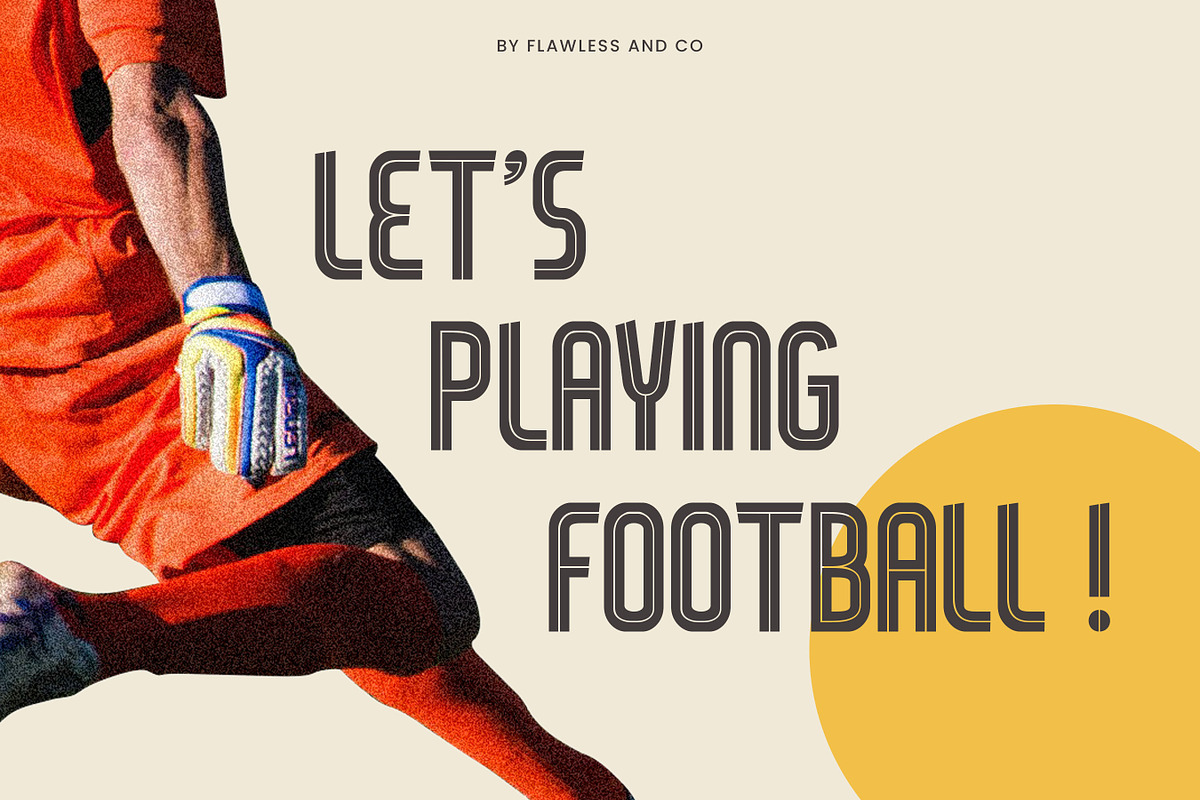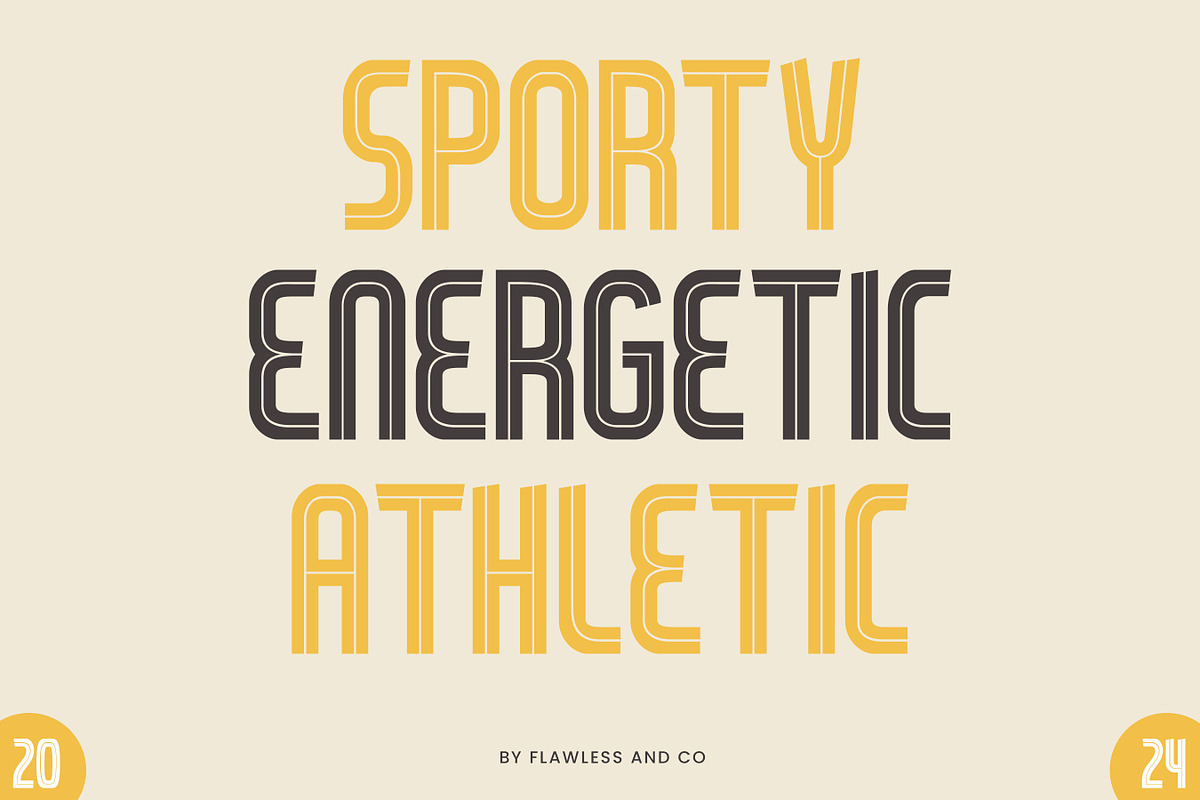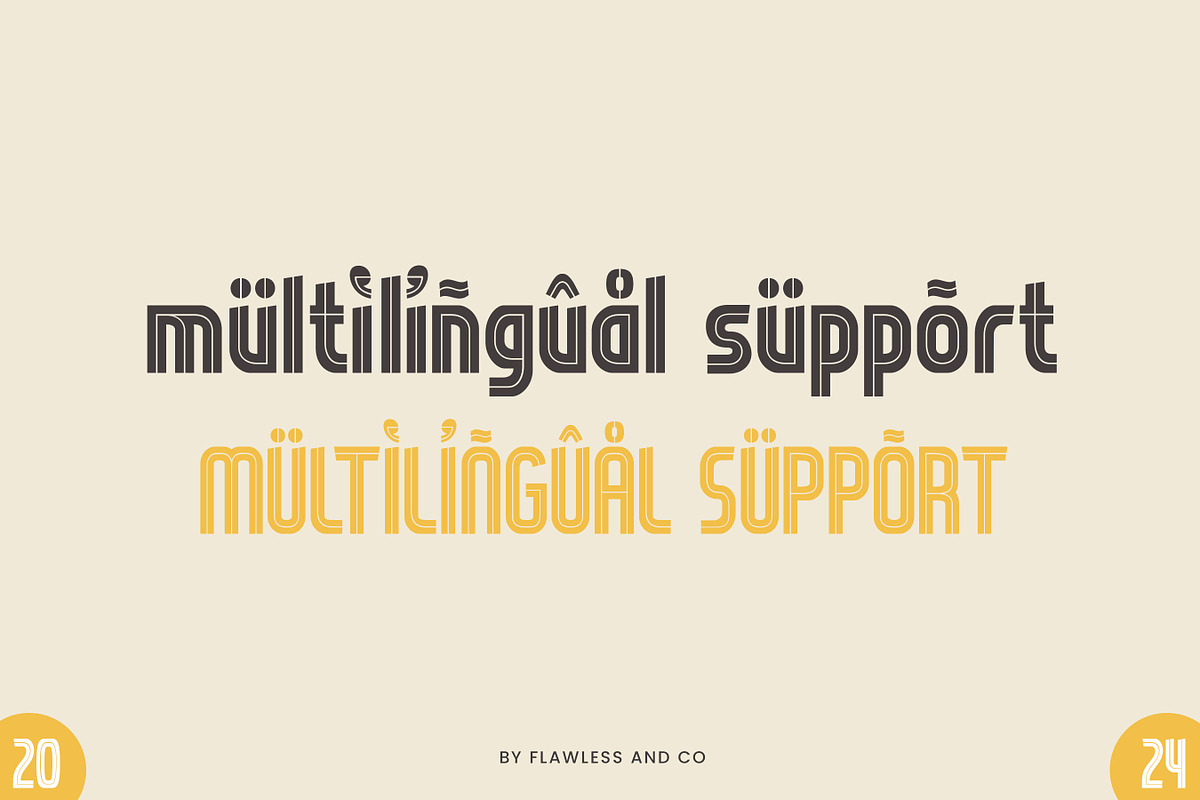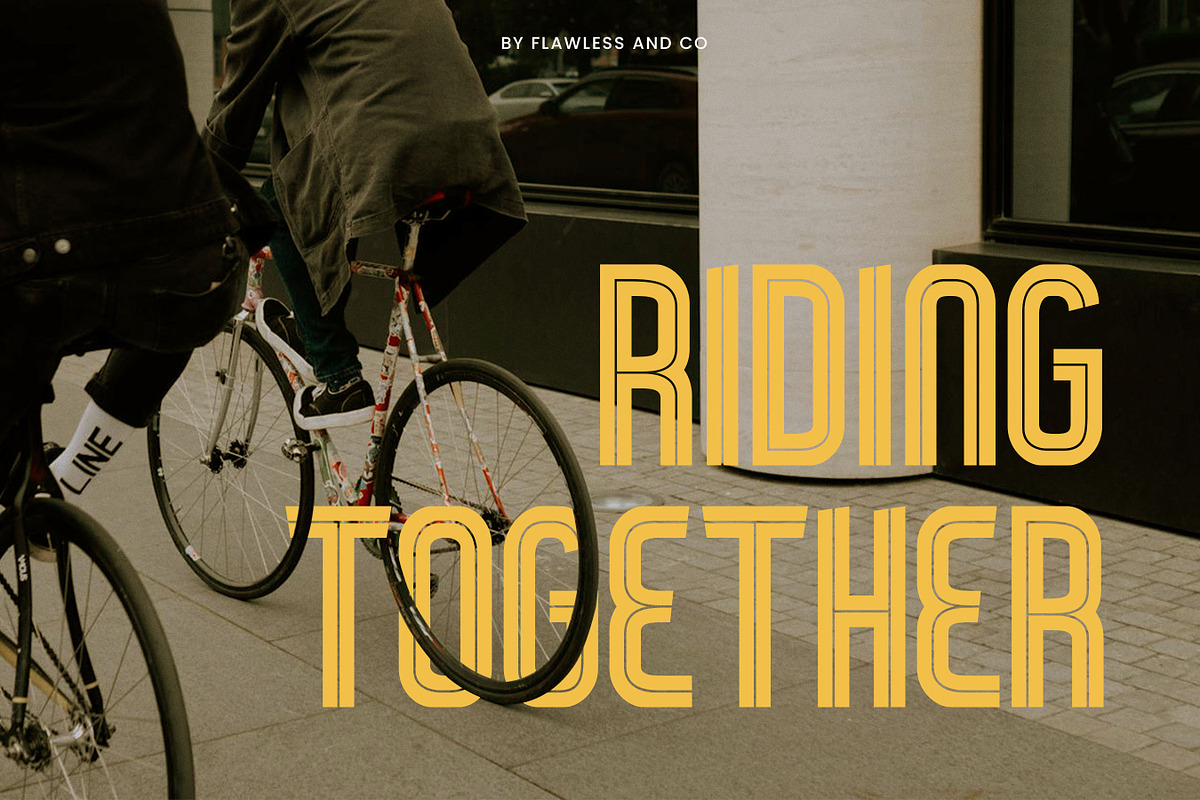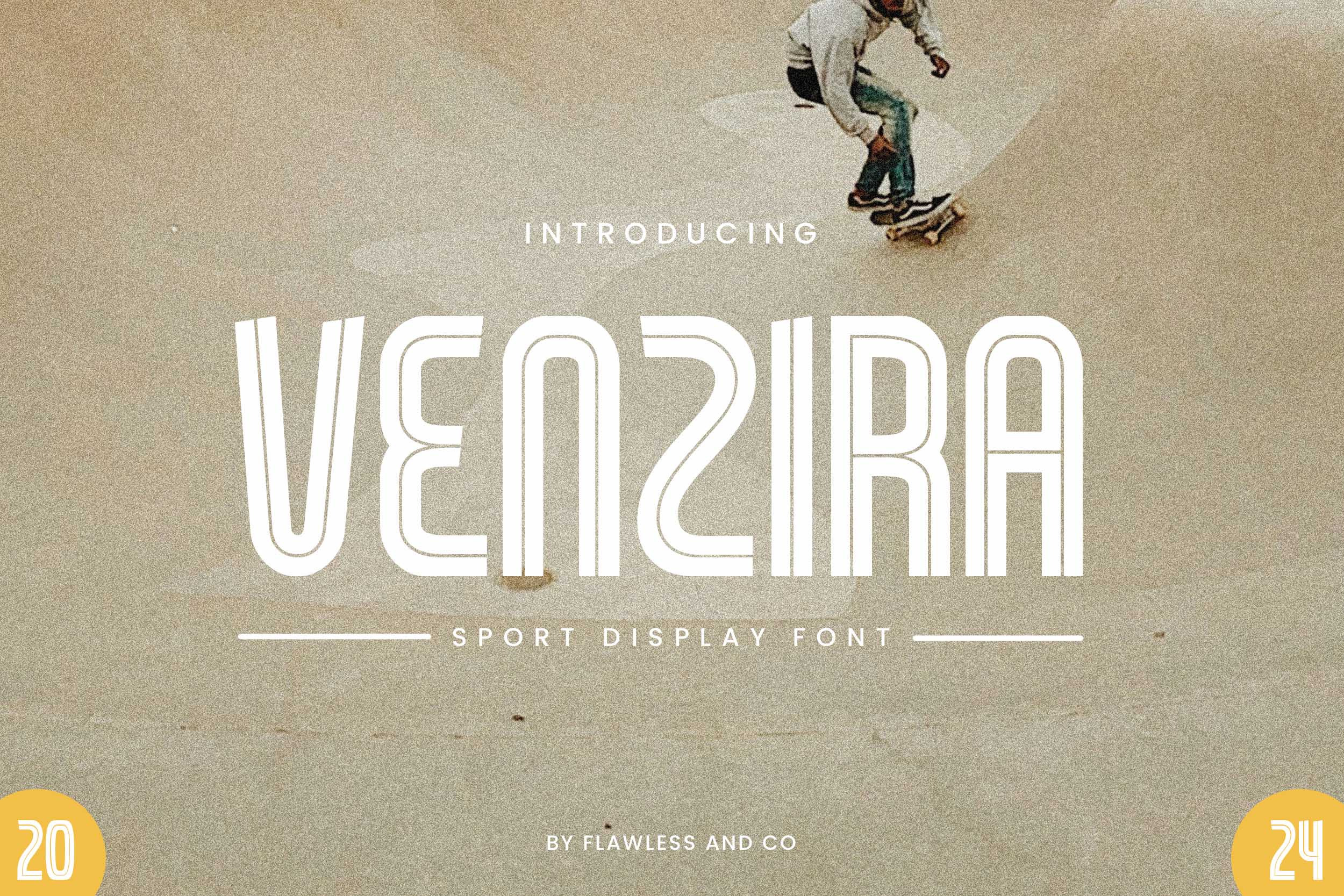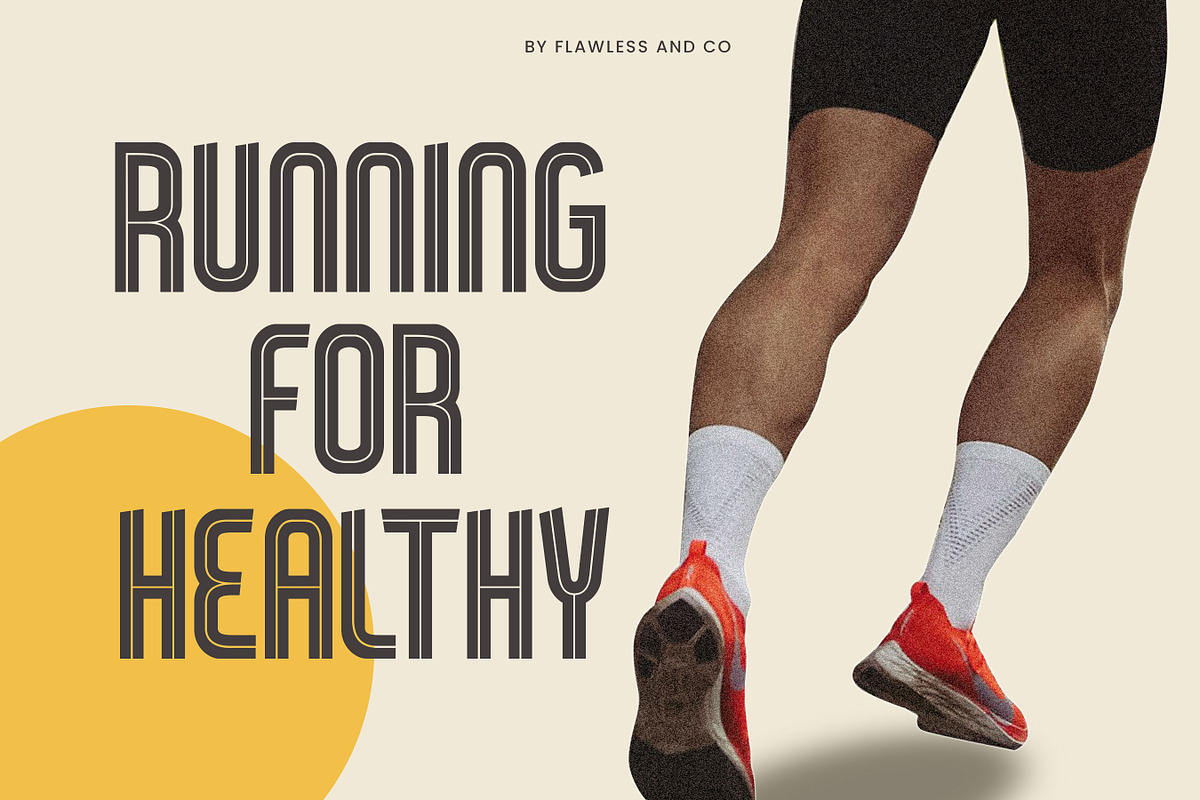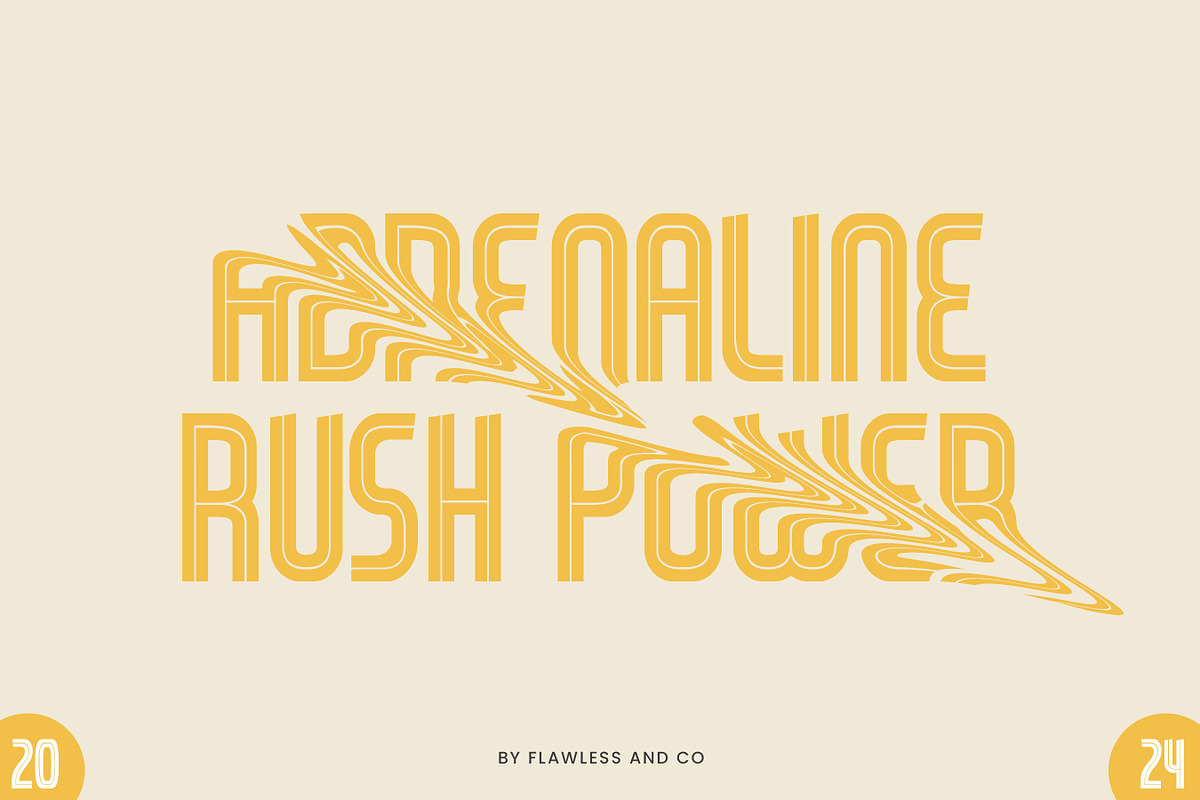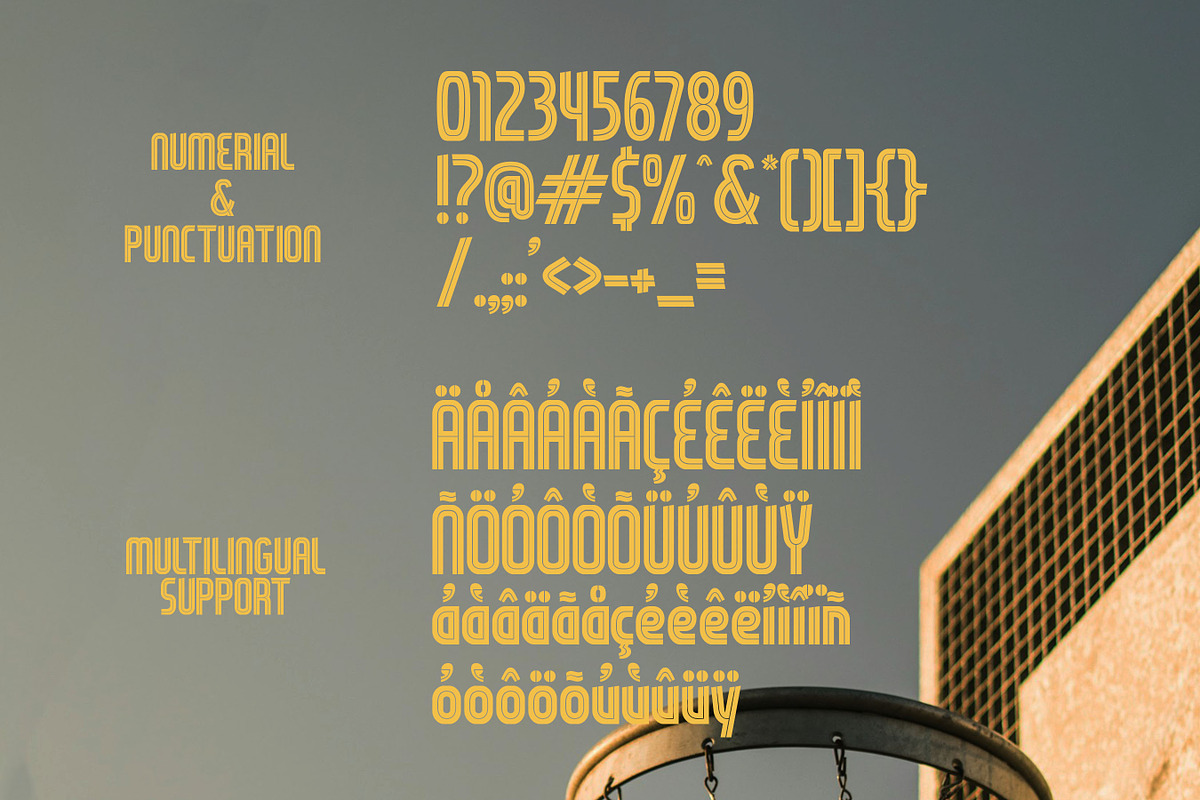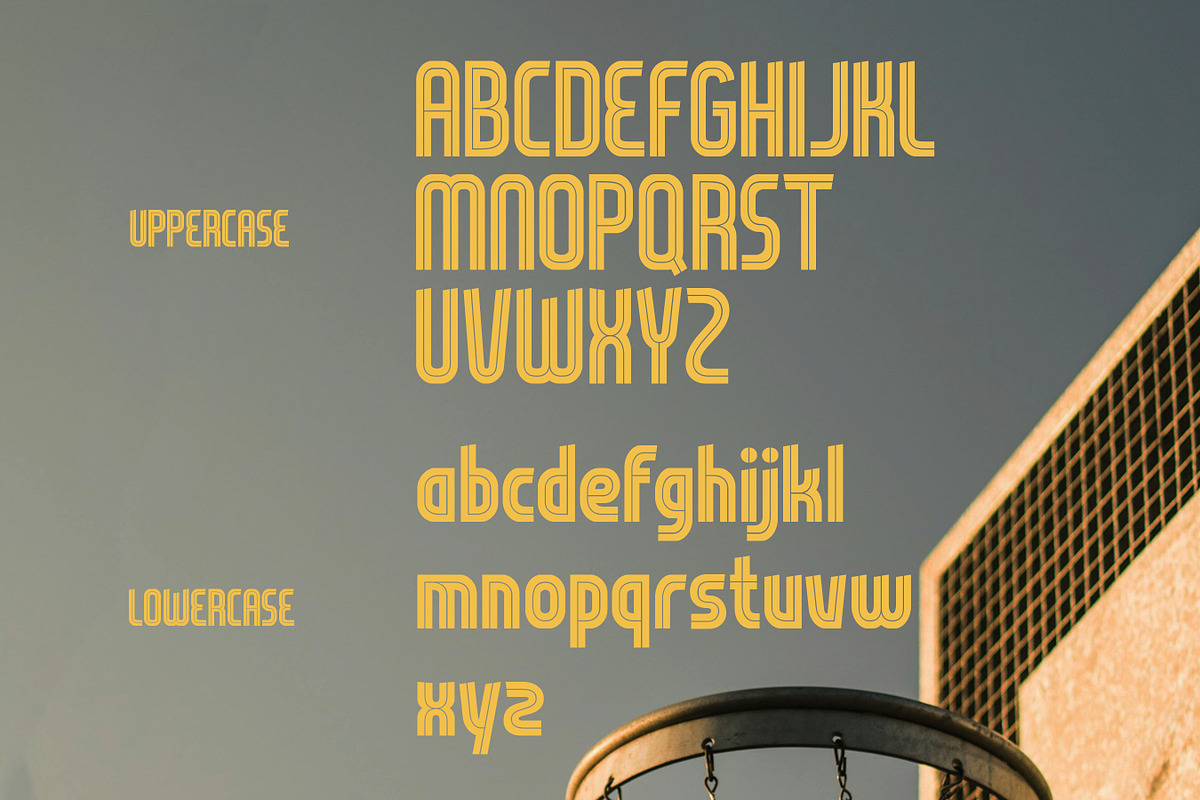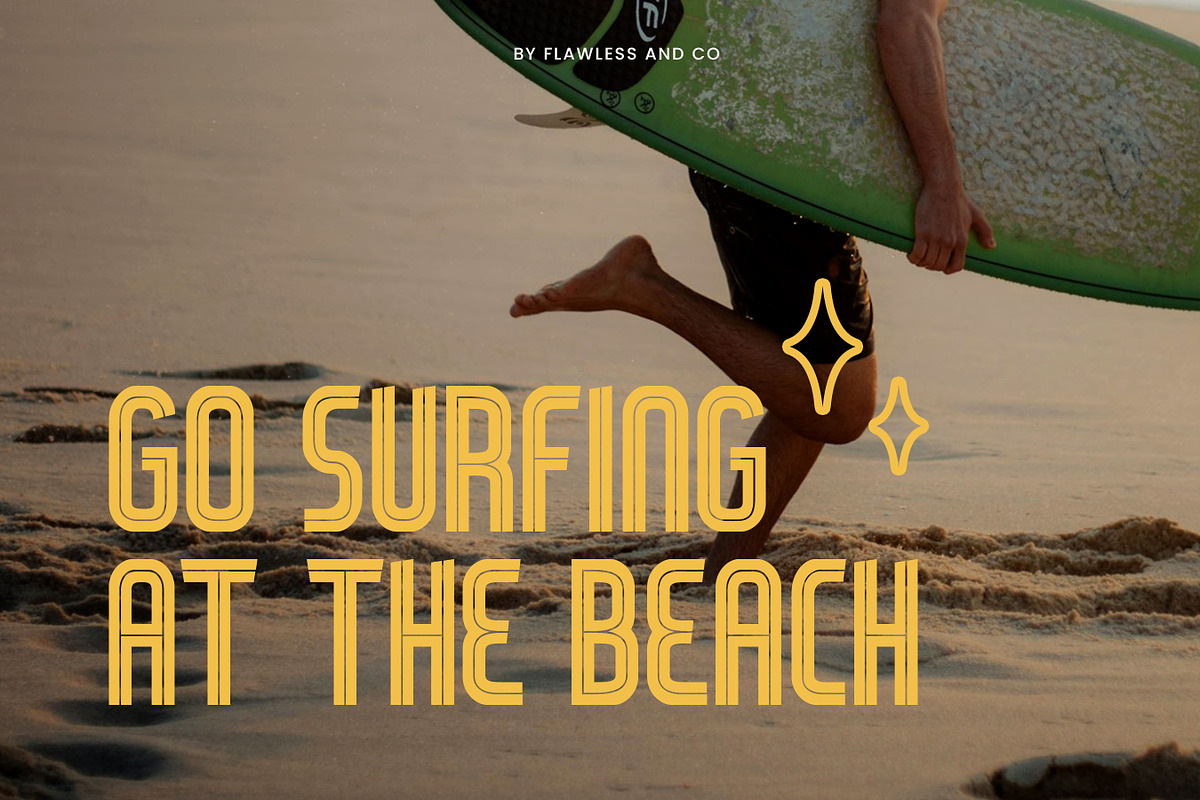
Venzira - Sports Font
Introducing "Venzira," a sports running font designed to capture the dynamic energy and excitement of the game. With its bold that combined with line and athletic letterforms, Venzira is perfect for any sports branding, team jerseys, posters, running events, football events, or other sports events, and more, ensuring your designs stand out with a powerful and energetic presence.
Multilingual Uppercase alphabet A-Z Lowercase alphabet a-z Numbers 0-9 Some punctuation